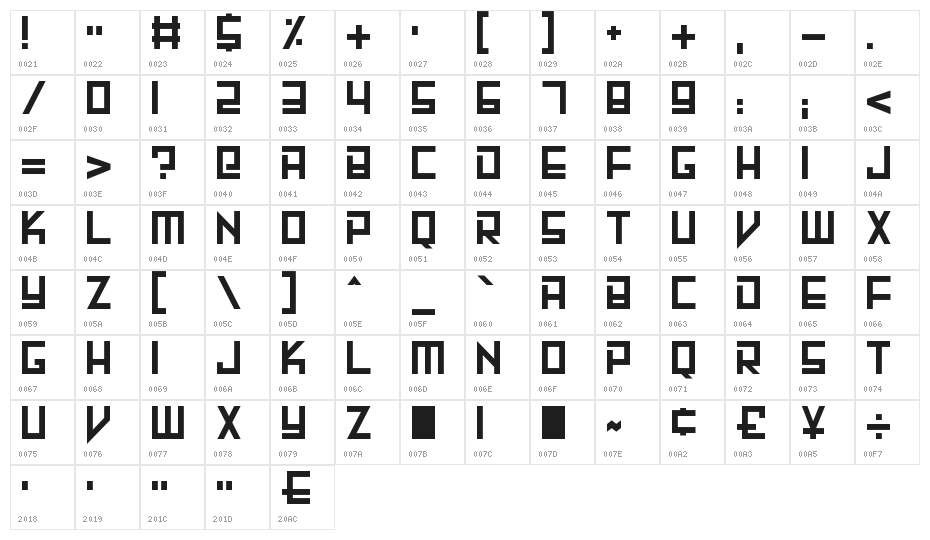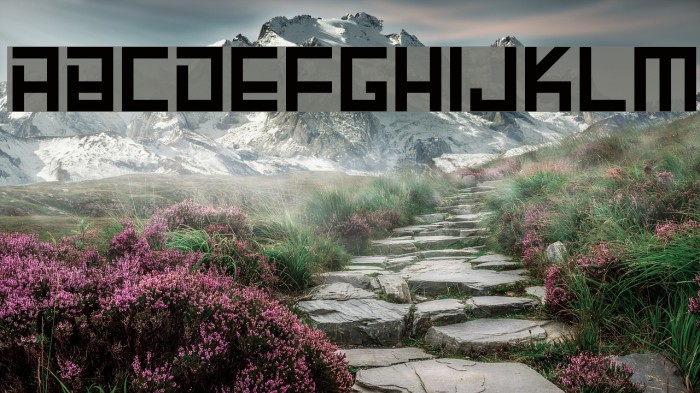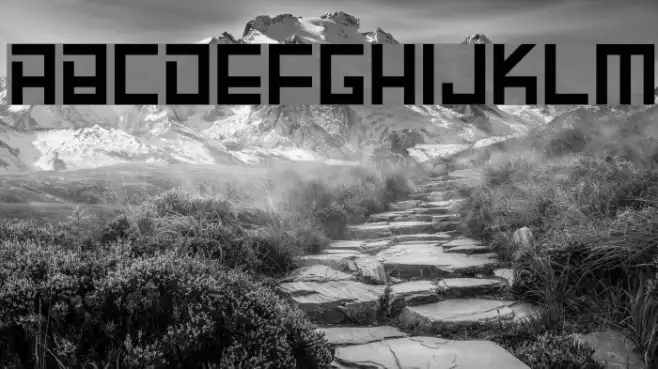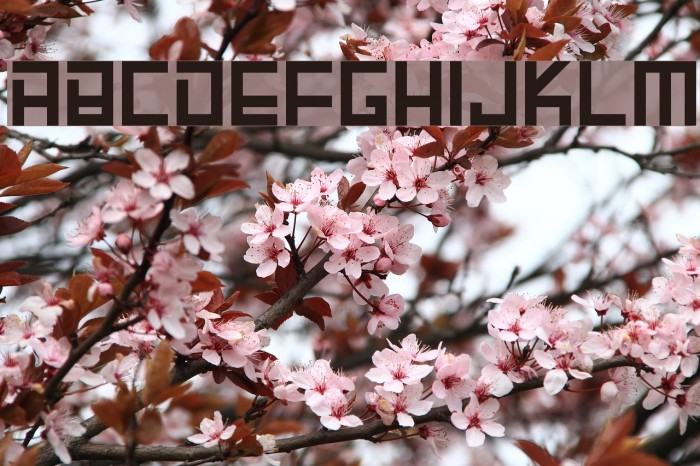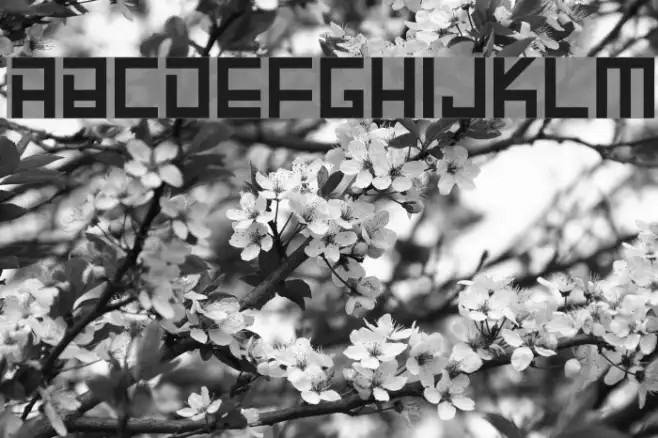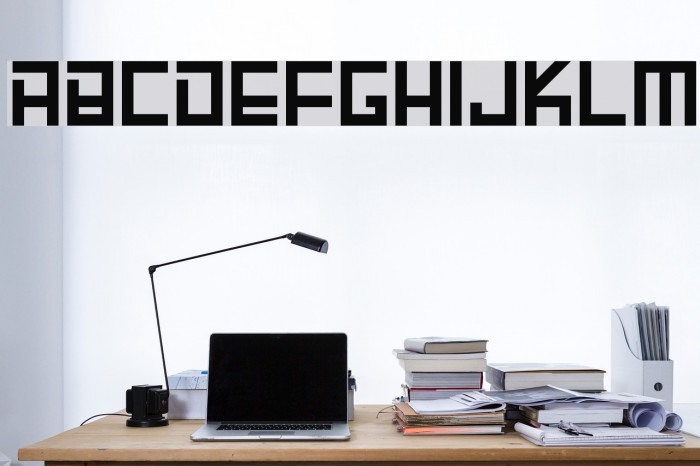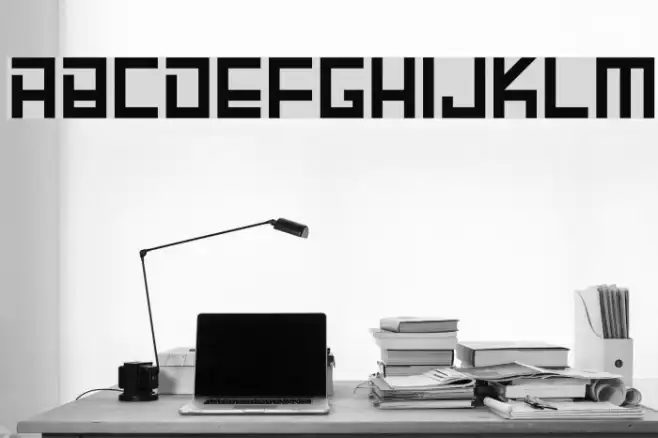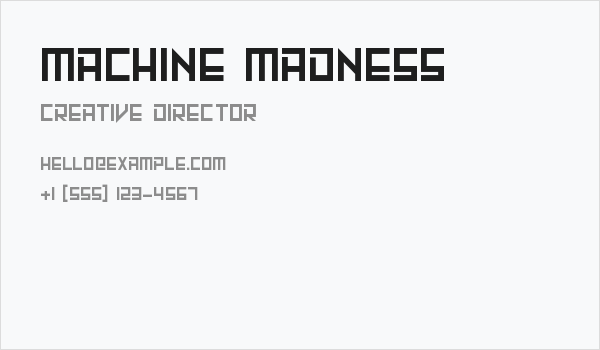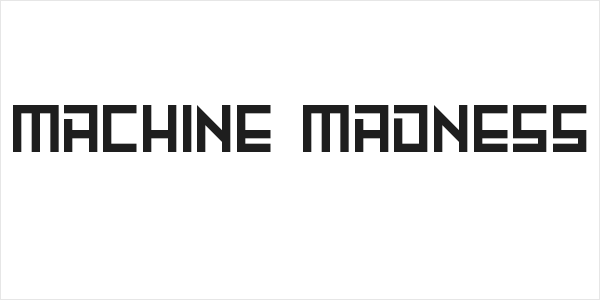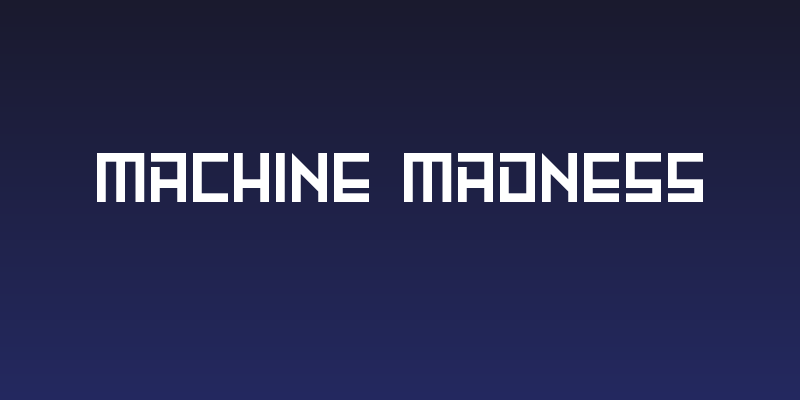
Machine Madness Font
Machine Madness Description
This font features a bold, geometric design with a distinctly modern and futuristic aesthetic. The characters are constructed with sharp angles and straight lines, giving them a mechanical and digital feel. The uppercase and lowercase letters maintain a consistent height, contributing to a uniform appearance. The numerals and special characters follow the same design principles, ensuring cohesion across all elements. The font's blocky structure and high legibility make it suitable for various digital and print applications. Its unique style is ideal for projects that require a technological or industrial theme.
| Proposed Projects | Ideal for technology branding, video game interfaces, sci-fi book covers, and digital displays. |